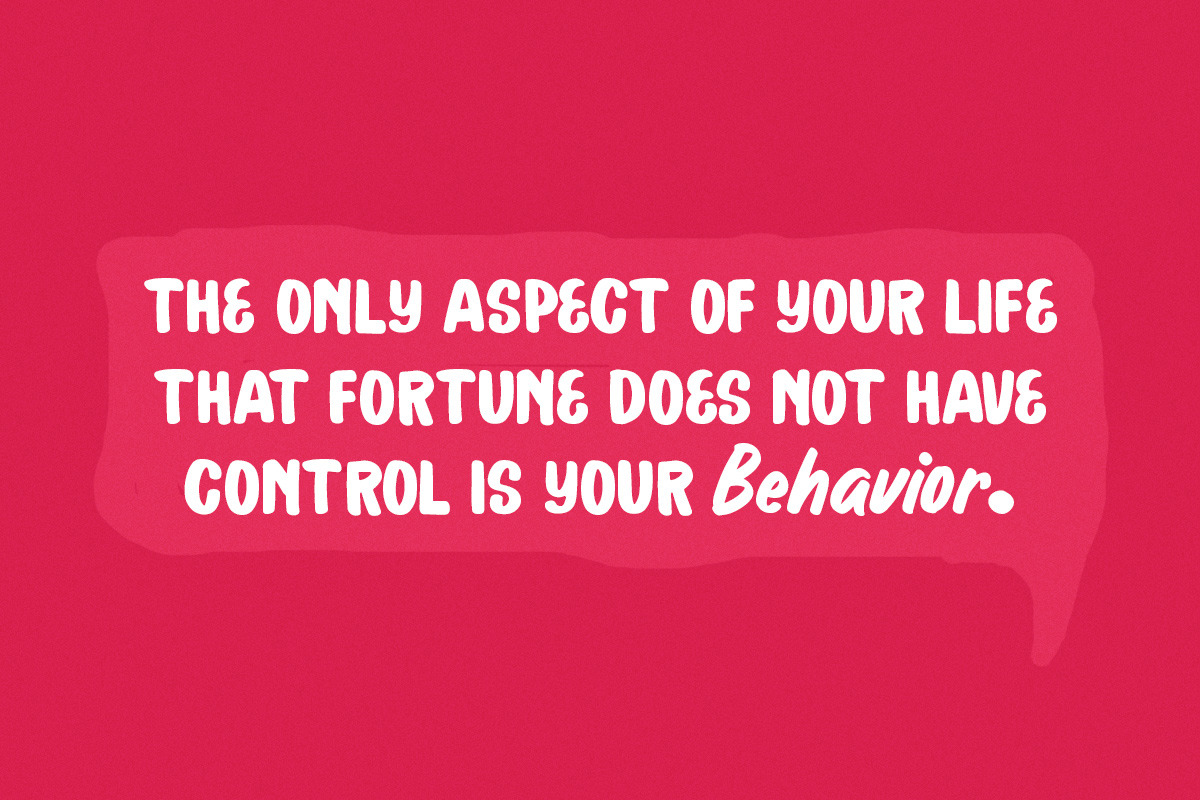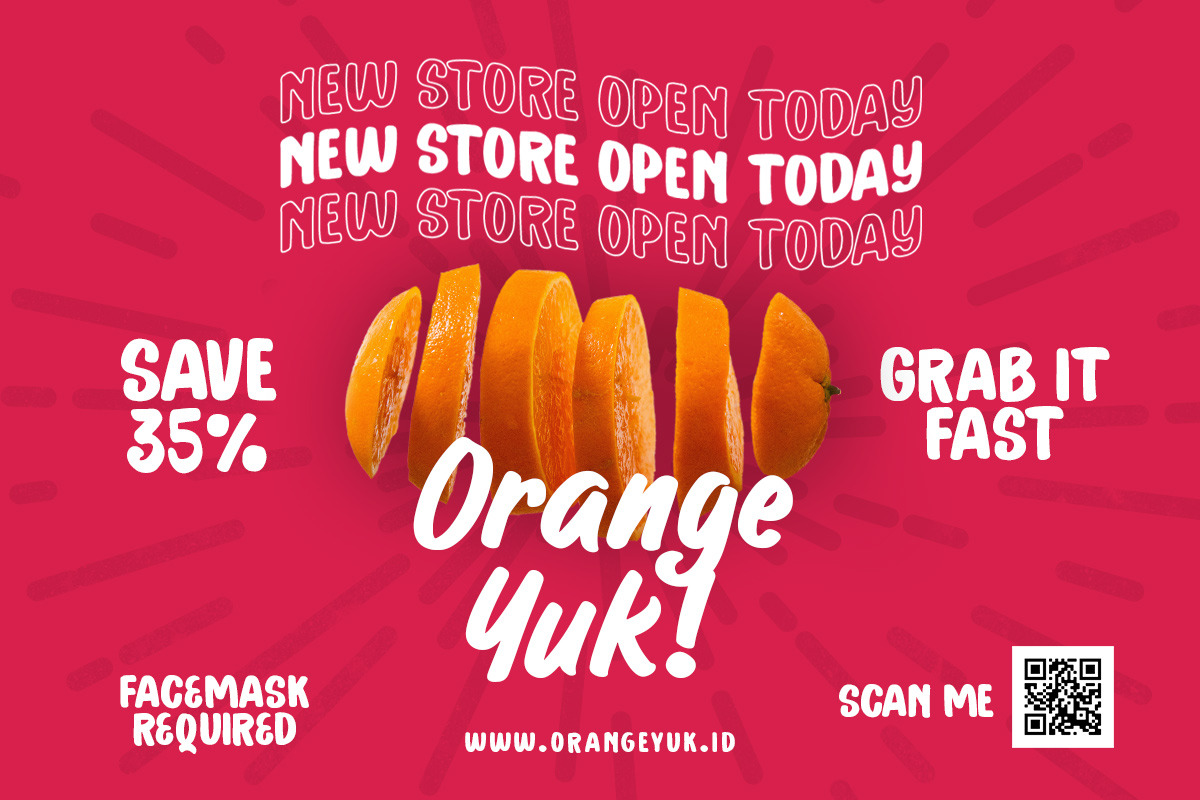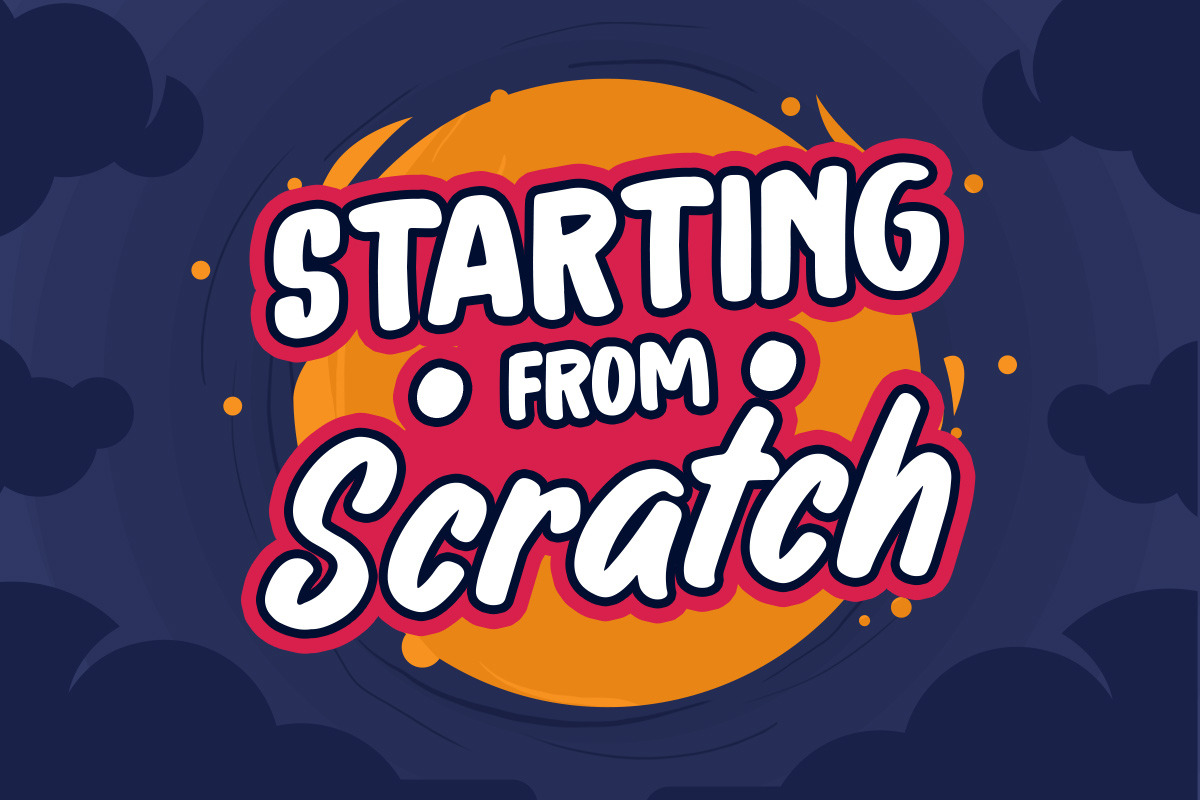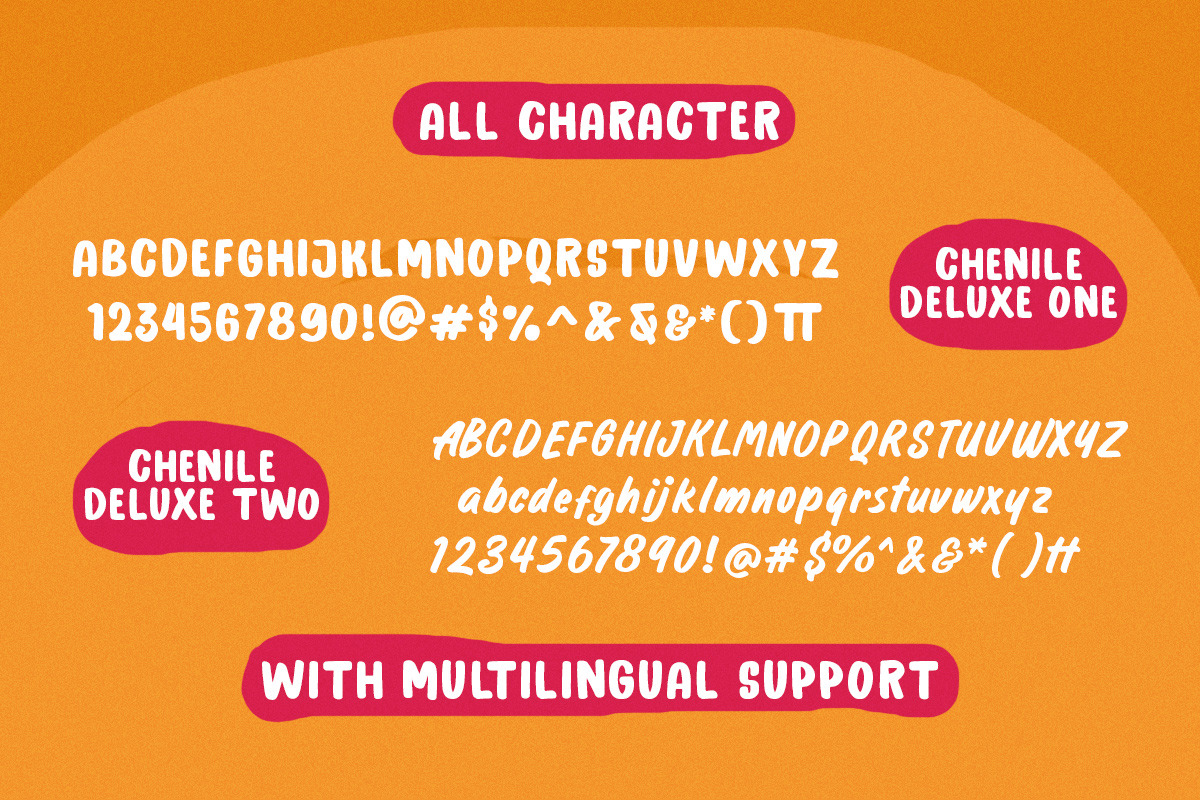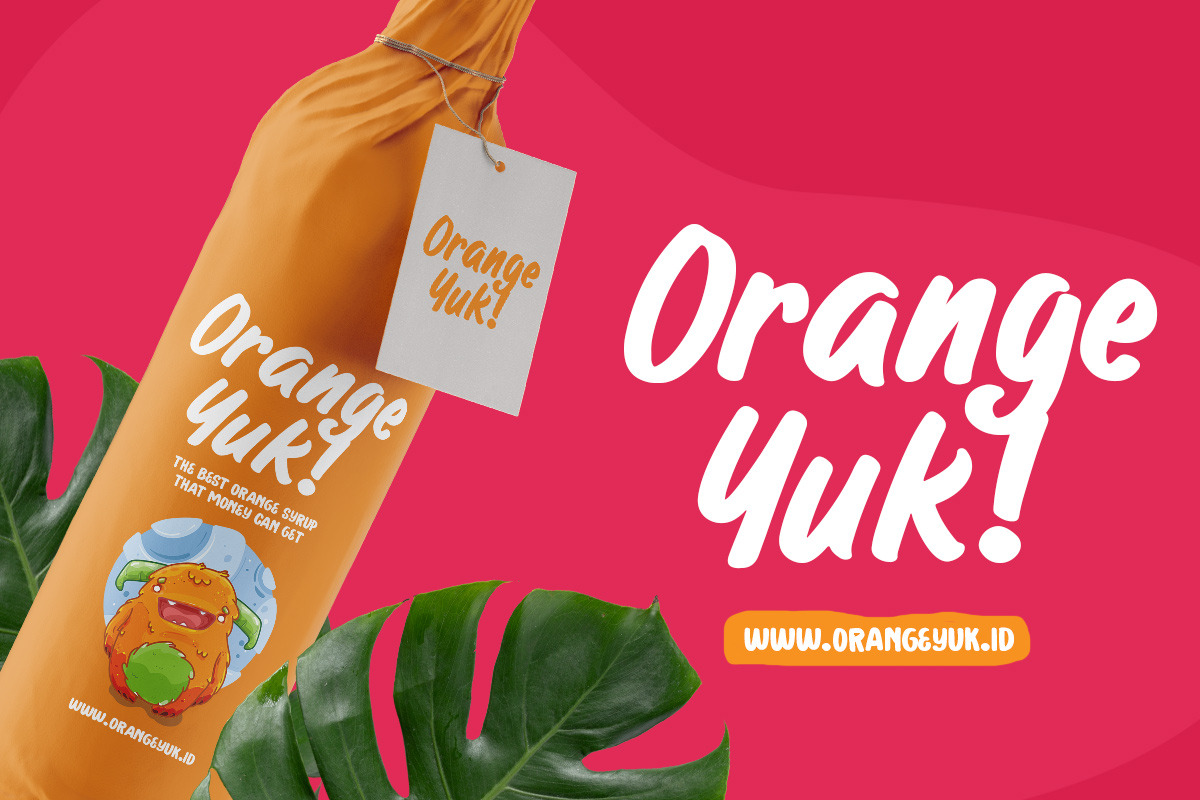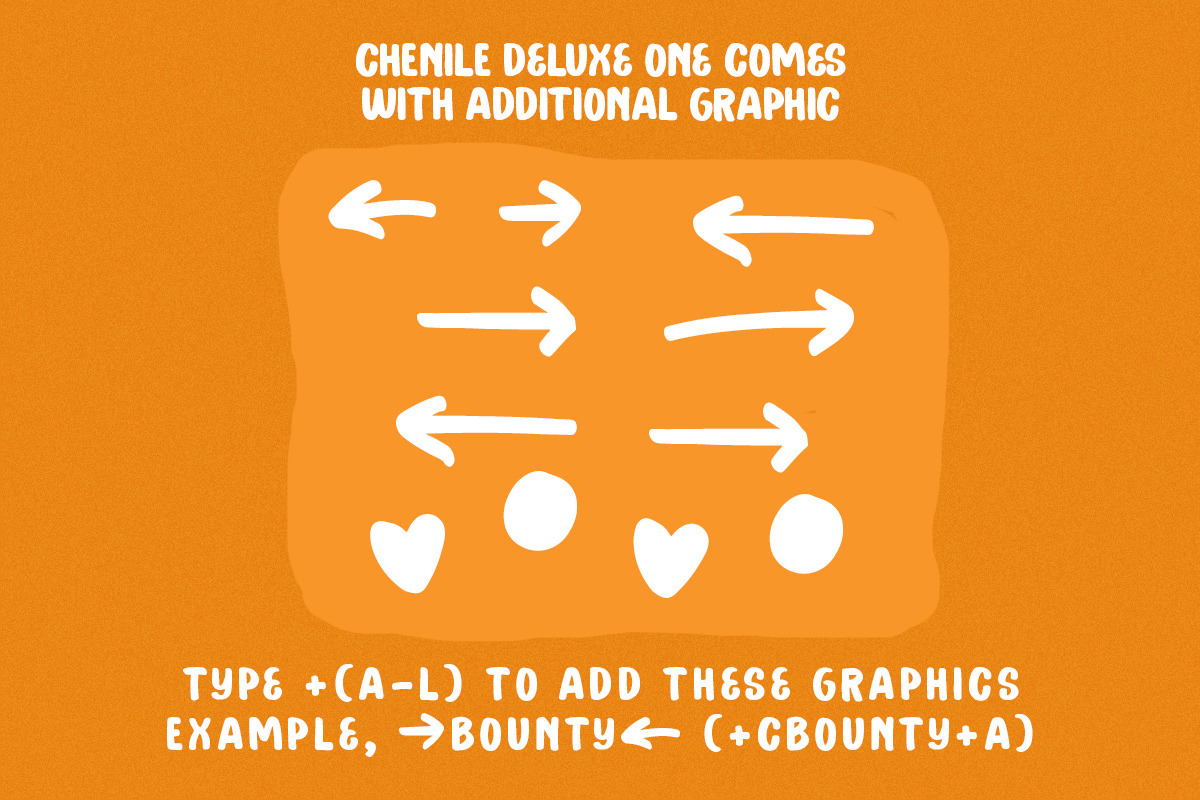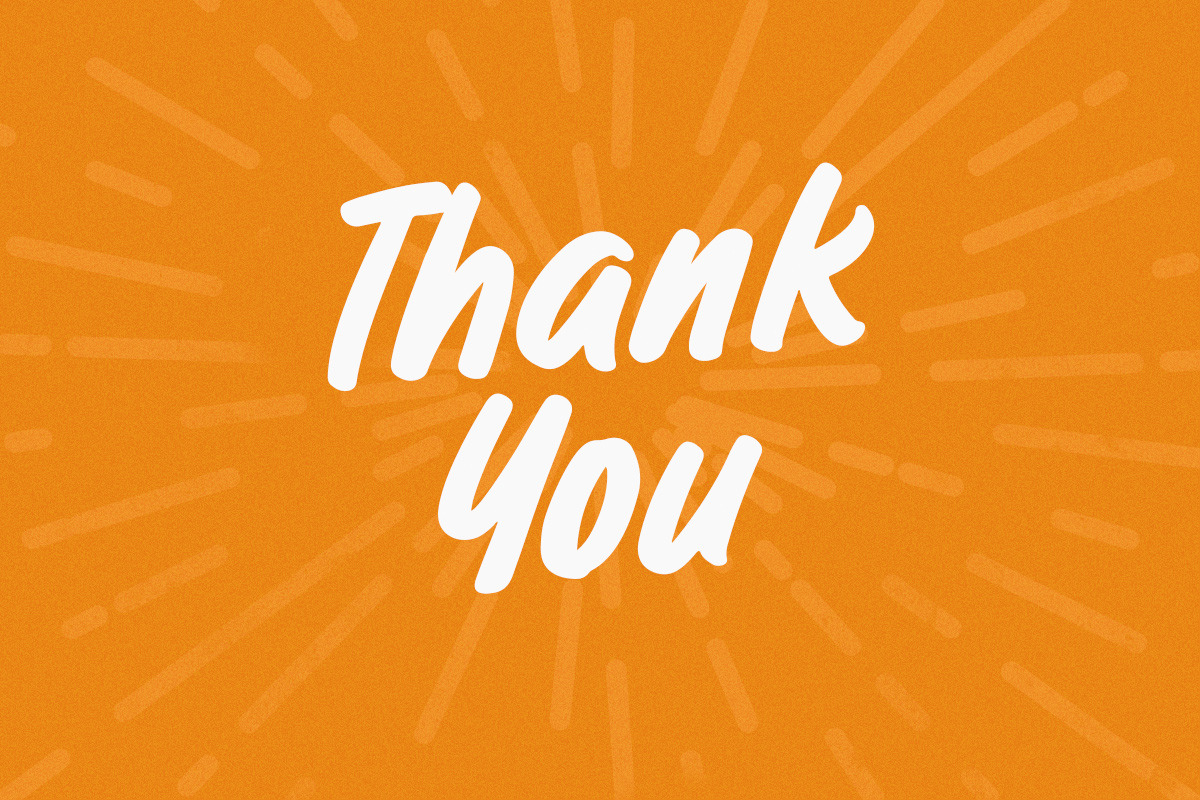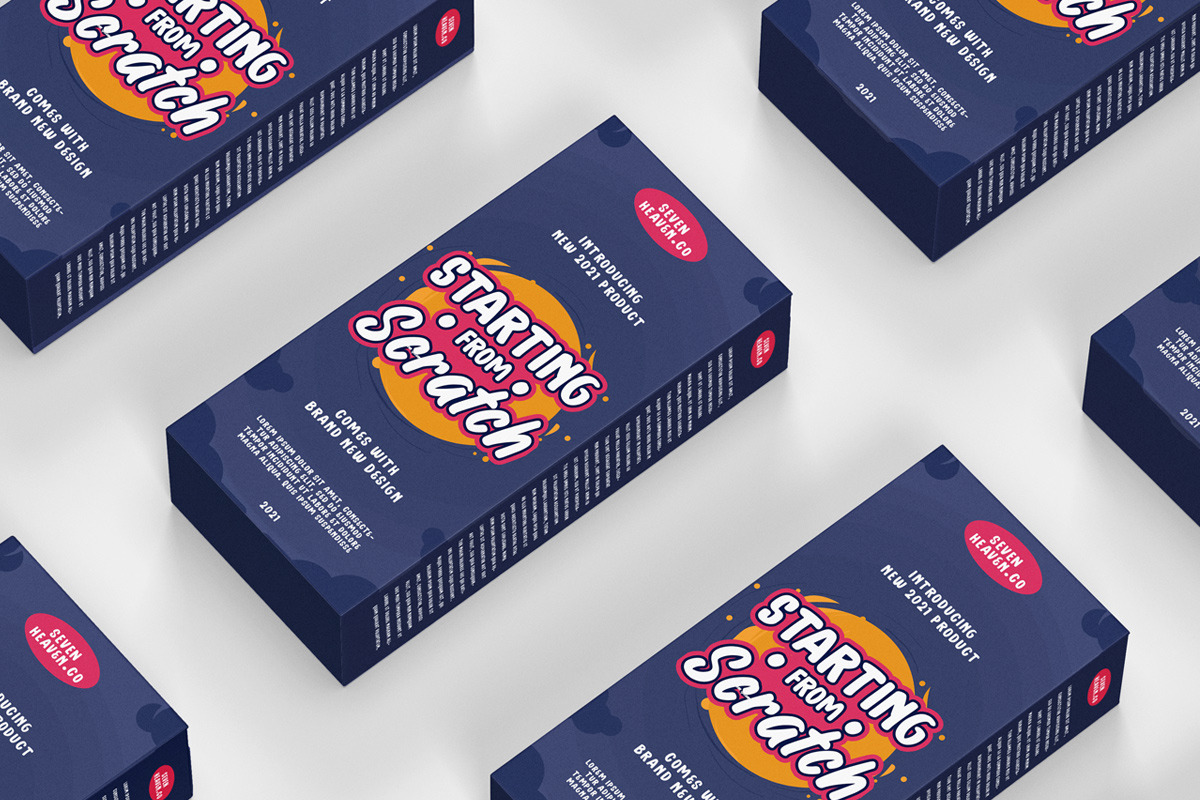
Chenile Deluxe
Introducing, Chenile Deluxe bold font duo. Chenile Deluxe is a handwritten pair of bold font that designed to complete each other. this font is perfect for branding, packaging, logotype, quotes, headline, etc.
- alternates and ligatures
- swash